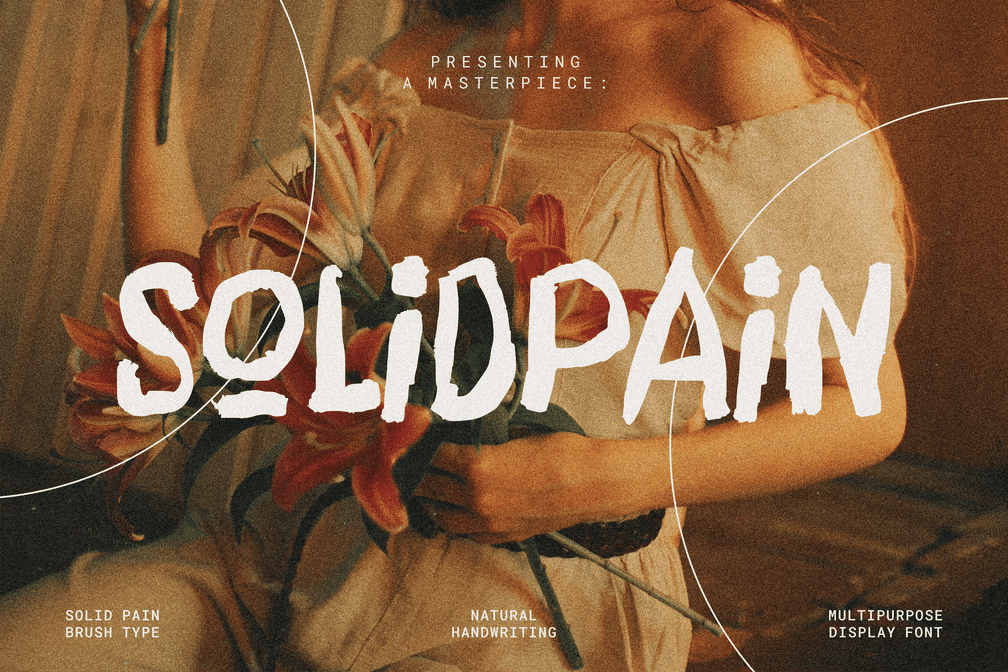
Solidpain Handwriting Brush
Solidpain Handwriting Brush perfect for book titles, posters, greeting cards, logos or any design that needs a cool touch.